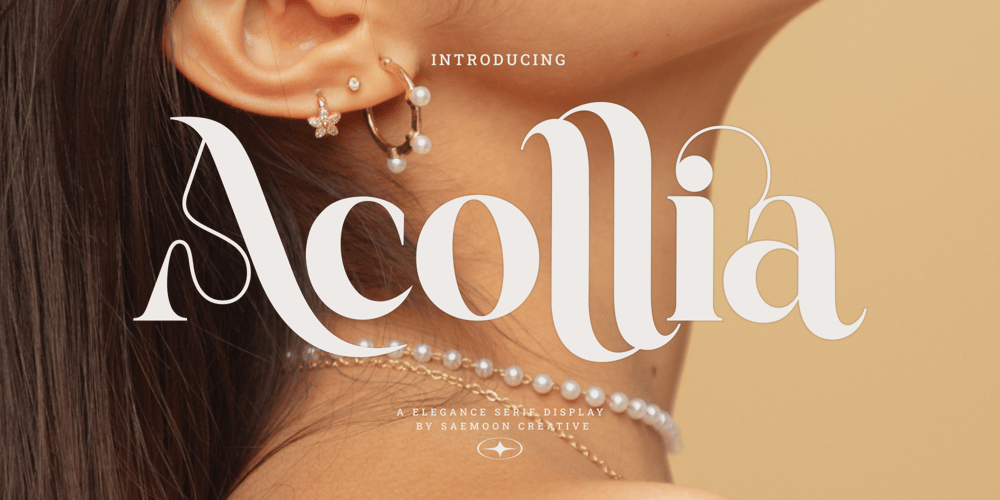
Acollia Font Family was designed by Sapto Susilo and published by Saemoon Creative. Acollia contains 1 styles and family package options. The Acollia font is a serif typeface that combines elements of elegance, uniqueness, and modernity. Its design features subtle details and distinctive curves that evoke a luxurious feel while remaining highly legible. With clean lines and balanced proportions, it harmonizes the traditional essence of serif fonts with a fresh, contemporary touch. Acollia is perfect for premium branding applications, such as logos, product packaging, or editorial design, aiming to convey a professional yet stylish image.